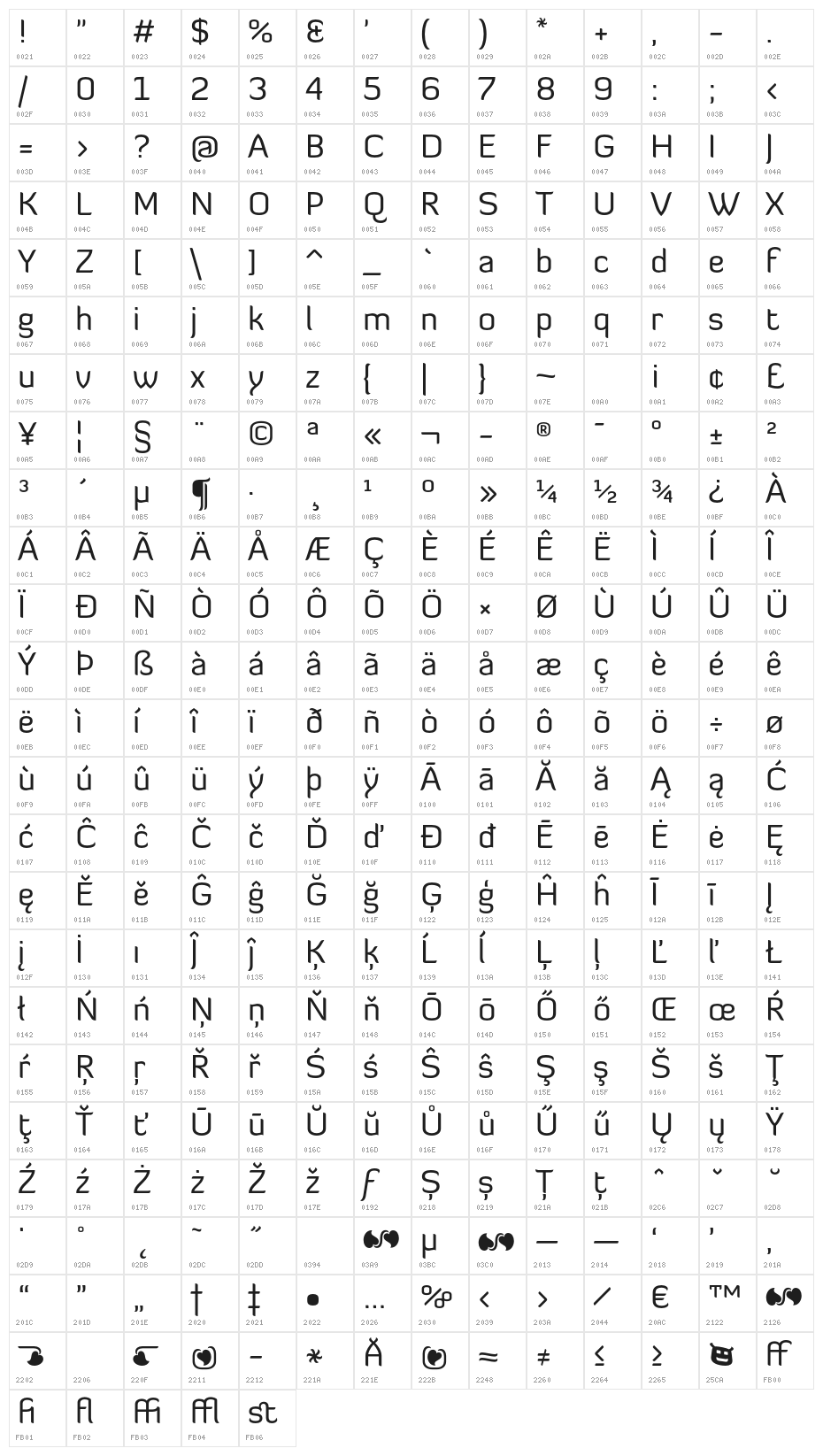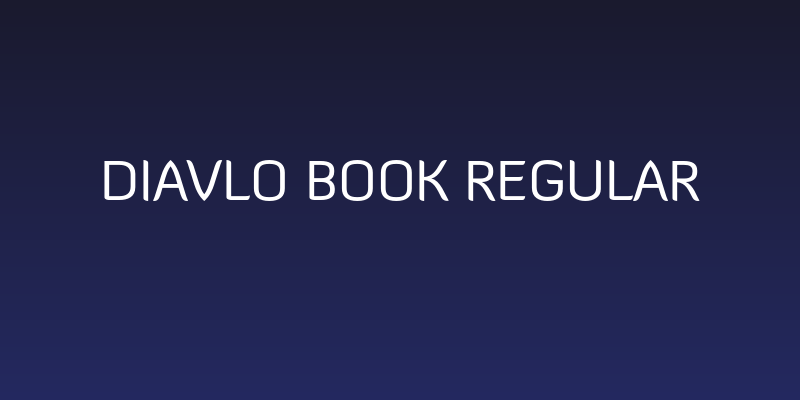
Diavlo Book Regular Font
Diavlo Book Regular Description
This font features a clean and modern sans-serif design with a slightly geometric touch. The characters are well-balanced with a consistent stroke width, giving it a uniform appearance. The uppercase letters are bold and assertive, while the lowercase letters maintain a friendly and approachable feel. The numerals are clear and legible, making them suitable for various applications. Special characters are distinct and harmonize well with the overall style. The font's simplicity and clarity make it versatile for both digital and print media.
| Proposed Projects | Ideal for branding, web design, advertising, and editorial projects where clarity and modernity are key. |